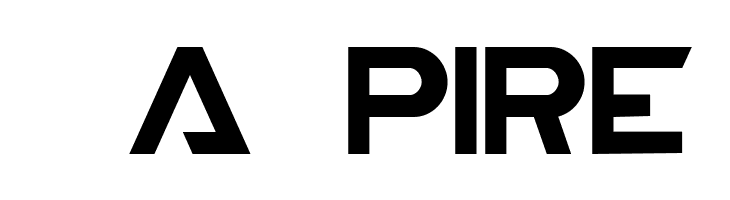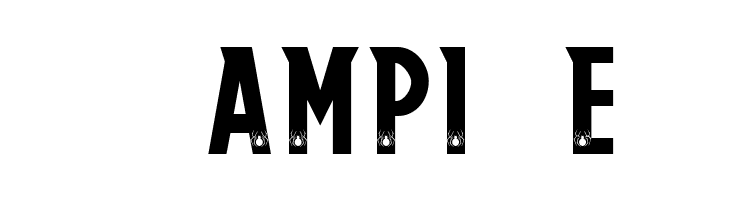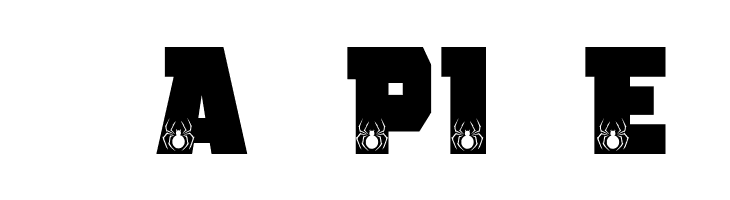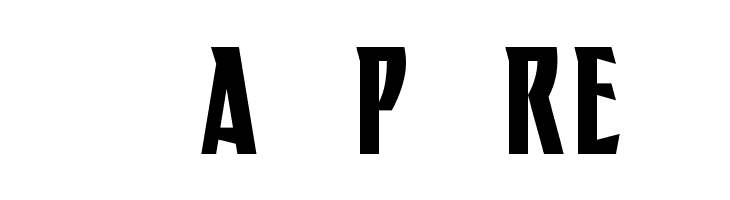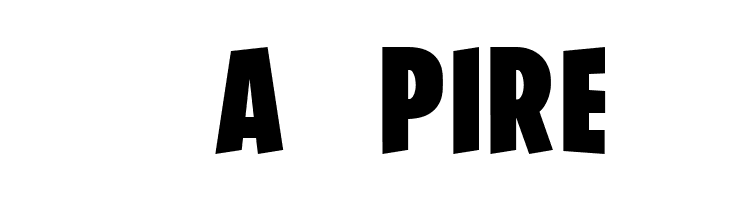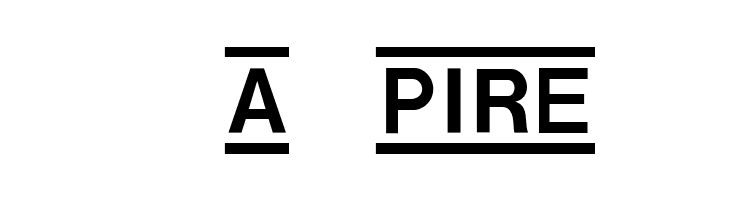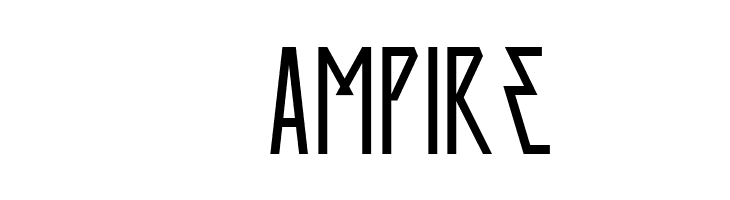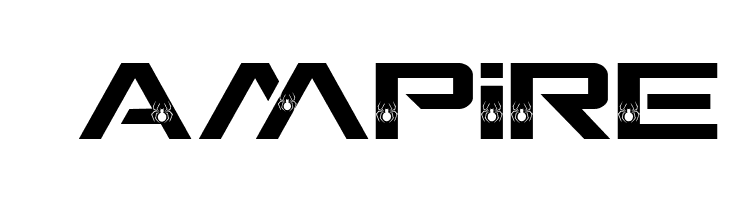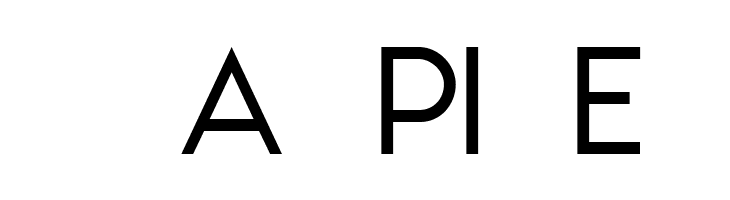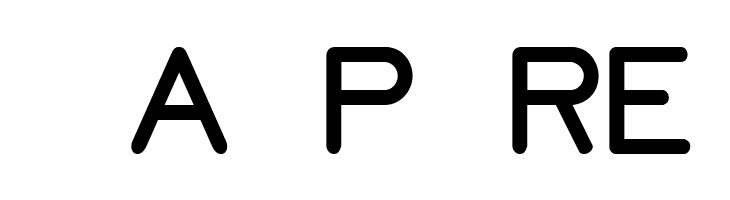
( TITANFALL FRONTLINE )
A bold, futuristic font with sharp angles and geometric shapes.
( The Astonishing Ant-Man )
A bold, modern font with decorative symbols inside each character.
( THE DESPICABLE DEADPOOL )
A bold, comic-inspired font with unique graphic elements.
( BLACK PANTHER )
A bold, angular font with a modern, geometric style and thematic symbols.
( FORTNITE BATTLEFEST )
A bold, decorative font with a playful, 3D style.
( SIGNPOST )
A bold, geometric font with strong, uniform strokes and modern appeal.
( SPIDER-WOMEN )
A futuristic, angular font with sharp lines and geometric shapes.
( ESCAPE FROM EARTH )
A bold, futuristic font with angular lines and decorative details.
( EXPEDITION ANNIHILATION )
A modern, geometric font with sharp angles and smooth curves, perfect for contemporary designs.
( NASA CONSOLE )
A modern, geometric font with rounded edges and excellent readability.